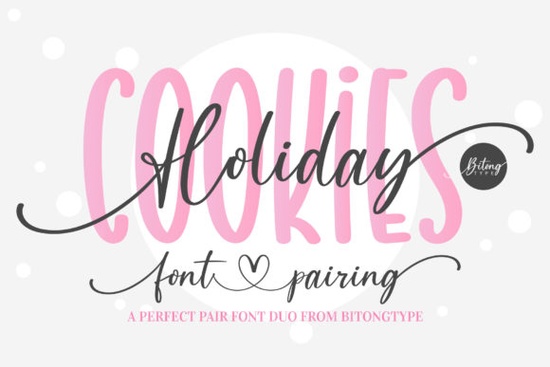
If you’re looking for a handwritten font that feels both playful and elegant, Holiday Cookies might be the perfect fit. Holiday Cookies Font is a duo‑styled design with a charming, delicate personality ideal for projects that need a personal touch without losing readability. The font is PUA encoded, so all of the extra swashes and alternate characters are easy to access on both Windows and Mac.
What does “duo‑styled handwritten” actually mean?
Unlike a single-style script, a duo font comes with two complementary variants. Usually you get a clean, upright style that feels neat and structured, and a slightly slanted or looser companion that adds a casual flair. This pair lets you mix and match within the same design set your main heading in the regular style, then use the alternate for a subheading or emphasis, all while keeping the same overall character. The result is a more dynamic look without introducing a completely different typeface.
Which projects are best for a delicate, handwritten font?
This font shines on anything that benefits from a personal, hand‑made feel. Common uses include:
- Holiday cards, gift tags, and party invitations
- Wedding stationery and baby shower décor
- Logo designs for bakeries, coffee shops, or craft brands
- Print‑on‑demand products like t‑shirts, mugs, and tote bags
- Social media quote graphics and blog headers
- Packaging labels and sticker sheets
Because the duo style offers subtle variety, you can use it for both the focal message and the supporting details without the design ever feeling flat.
How does Holiday Cookies compare to other script fonts?
Every project has its own tone, and the right script font can make all the difference. If you need something with more weight and a dry‑brush texture, Stark Brush might be a better match. For a bouncy, casual script that works well on kids’ apparel or upbeat brands, the Big Adventure font has a playful rhythm. Designers who love elegant, looped flourishes often reach for Hello Scrilla, a script with generous swashes. When the mood calls for a light, beachy handwriting style, the Pacific Beach font delivers a similar airy charm but with a slightly more upright structure.
Holiday Cookies sits in a sweet spot among these. It’s less textured than a brush script, softer than a bouncy casual face, and its festive, delicate weight feels especially suited to winter holidays and romantic themes. The duo styling also gives you a flexibility that many single-weight scripts don’t offer.
What should I keep in mind when pairing a duo font?
Since the two styles already work together, you can lean into that internal contrast. Try these simple approaches:
- Set the main headline in the regular style, then use the alternate for a date, name, or tagline.
- Pair both font styles with a clean, neutral sans‑serif for any body text that keeps the overall layout readable and balanced.
- Use swashes at the beginning and end of a single word for emphasis, but avoid overdoing it; one or two special letters per design is usually enough.
- Watch your spacing. Handwritten fonts often need a little kerning adjustment, especially around capital letters that connect to lowercase ones.
Playing with these small details helps the font feel intentional, not just “dropped in.”
As a next step, open the font in your design software and test how the two styles and the special alternates change the mood of a simple holiday greeting. You’ll quickly see why Holiday Cookies is a favorite among crafters and small business owners who want something that feels both homespun and polished.